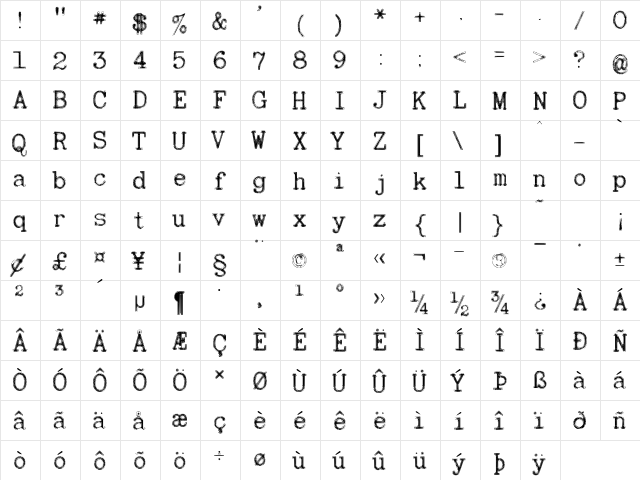
Typewritten Becker Normal
Typewritten Becker takes a measured approach to typography — its balanced proportions and neutral character make it a reliable workhorse for both digital and print work.